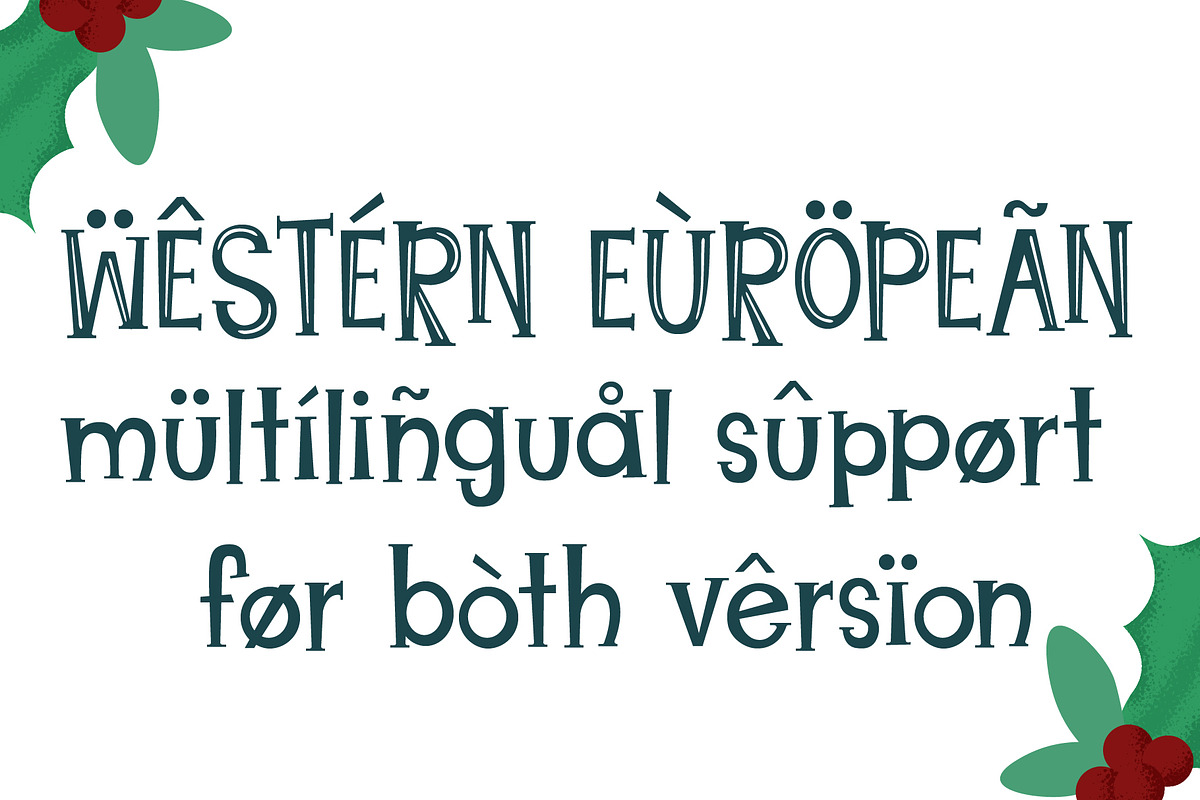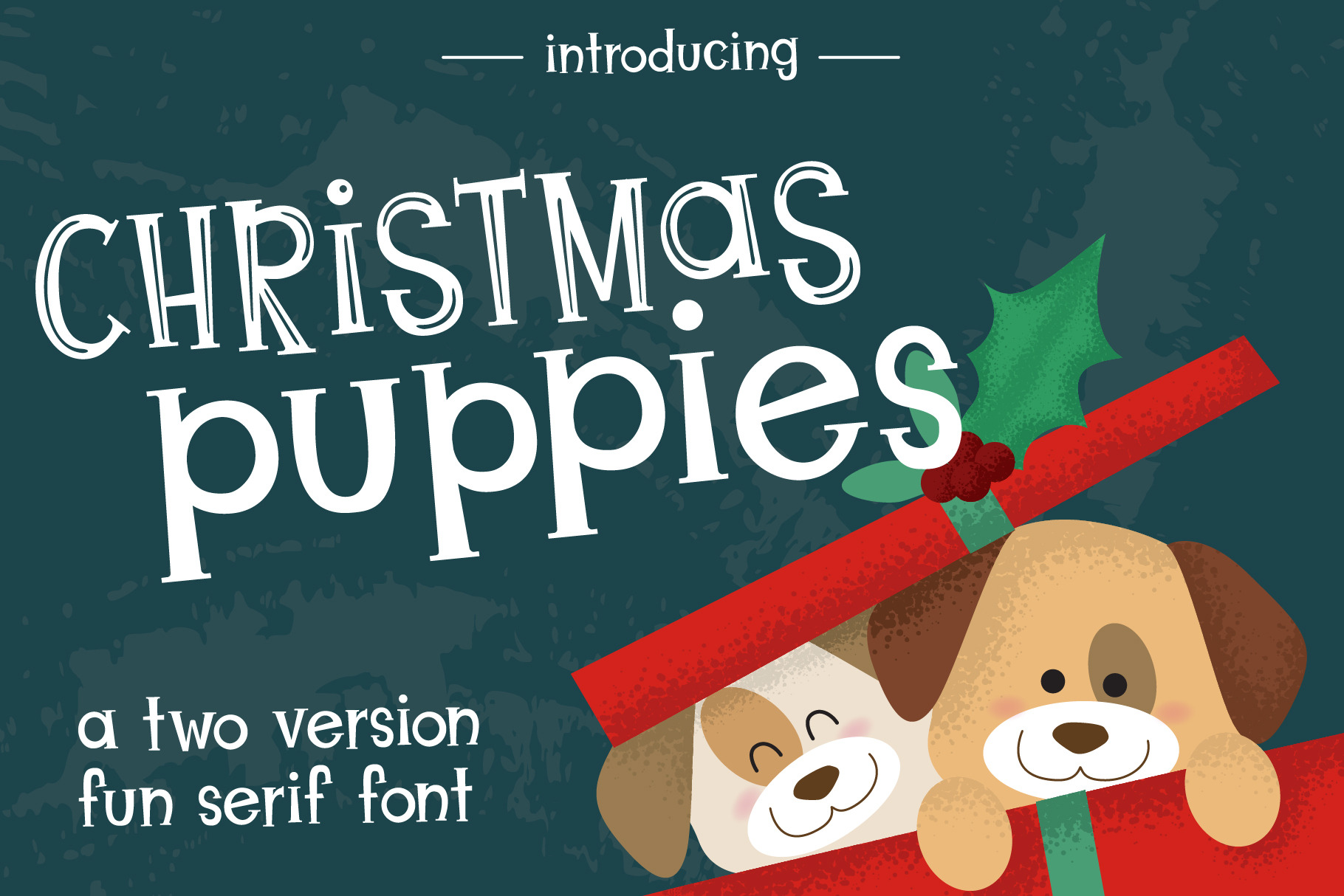
Christmas Puppies Font Pair
Introducing, Christmas Puppies. I wanted something that was clean and useful, but fun and festive. So I took the inspiration of a Christmas Holly and the roundness of a fun puppy attitude and put them together for this font family pair. Enjoy!. This PUA font is perfect for professional designer, social media, or crafters.